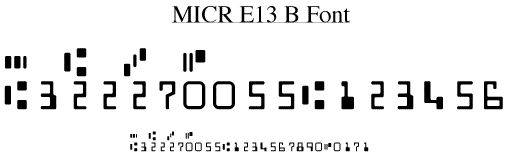
Three MICRE13B fonts for checks printing
This MICR e13b font (also often called MICR font, or E-13B font) is necessary to print numbers and special symbols at the bottom of checks so they can be recognized by the OCR/magnetic ink reader systems used by banks in North America (US and Canada).
To create the proper magnetic stripe, you need numbers, and separator symbols.
The separators are ABCD. For compatibility with some programs, you can also use single quote, sharp, dollar and percent.
Below is an example of the data one would enter in a plain font, to get the same as the bottom of a check :
9 '#$% 0123456789
10 '#$% 0123456789
#122000661#0545'03739'19299%
#322270055#0148202801%
12 '#$% 0123456789
Here is how it looks, when the MICR E13B Match font is used (the font must be installed to show the result) :
9 '#$% 0123456789
10 '#$% 0123456789
#122000661#0545'03739'19299%
#322270055#0148202801%
12 '#$% 0123456789 (12, This is is the proper size)
If you need Unicode encoded separator characters, they are supported as well, compliant to Unicode page U2440
MICR (Magnetic Ink Character Recognition) strips are used by U.S. bank systems to automate check processing, around 68 Billion last year.
The MICR techology has been invented around the mid-fifties to help processing the growing number of checks that took much too long to handle by hand.
The MICR E13B Match font has been created with extremely accurate positioning, and tested with the finest benchmark systems. It is used daily by major corporations, as well as regional and national banks.